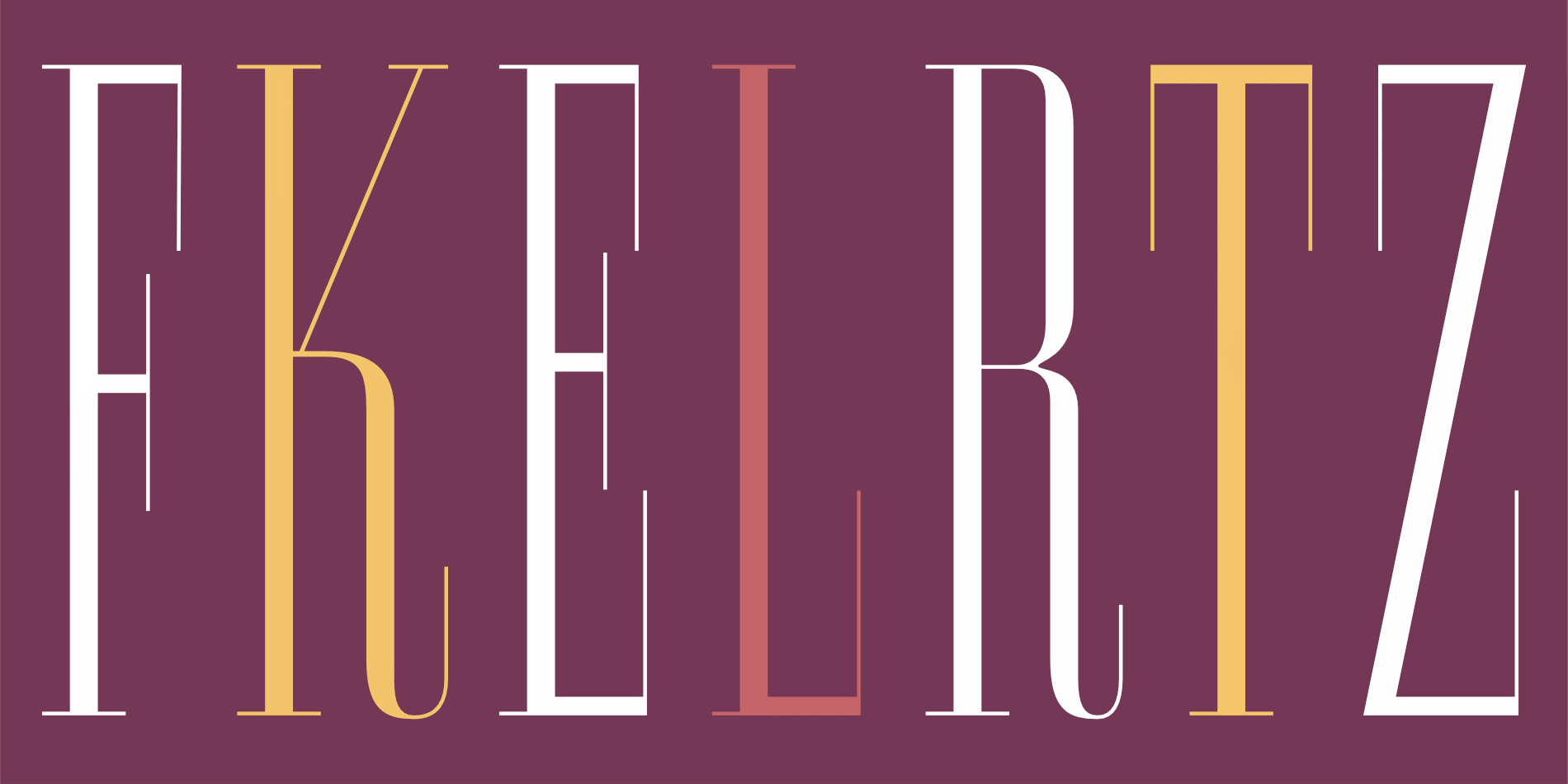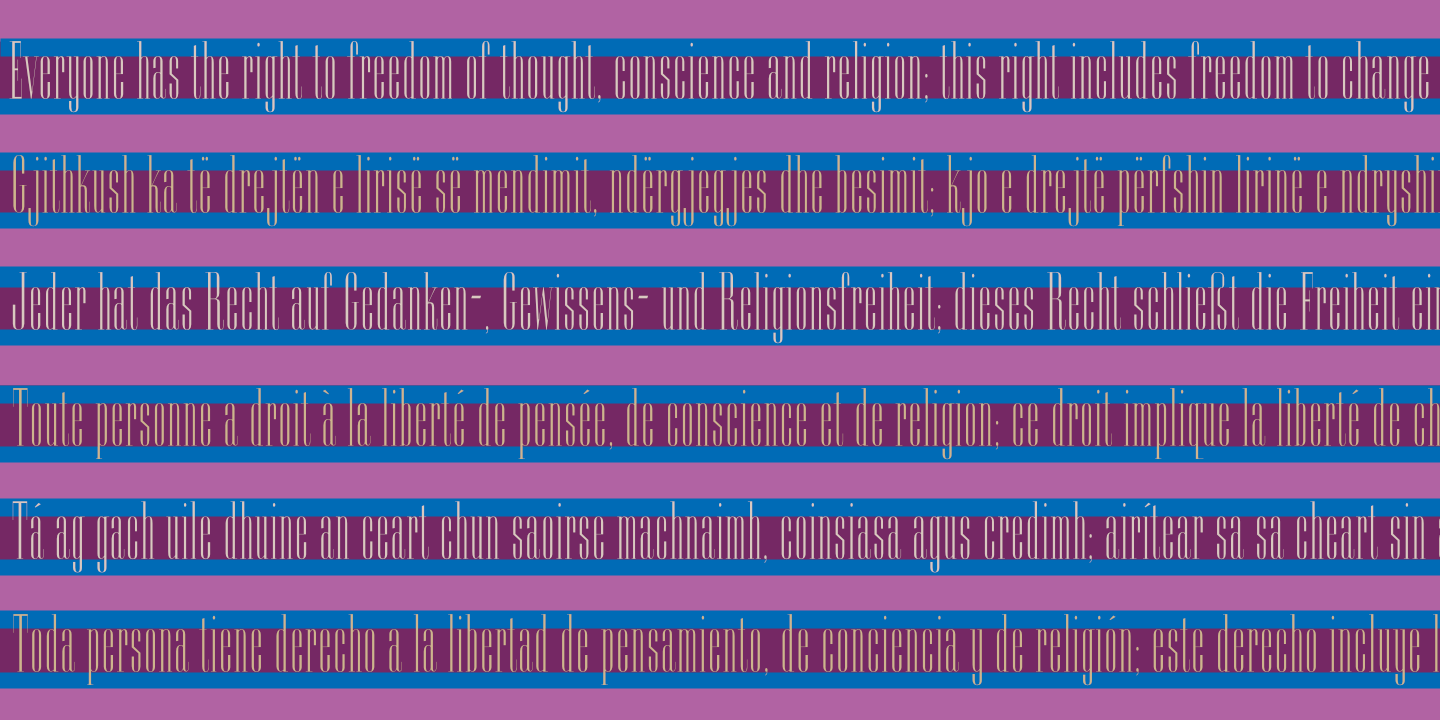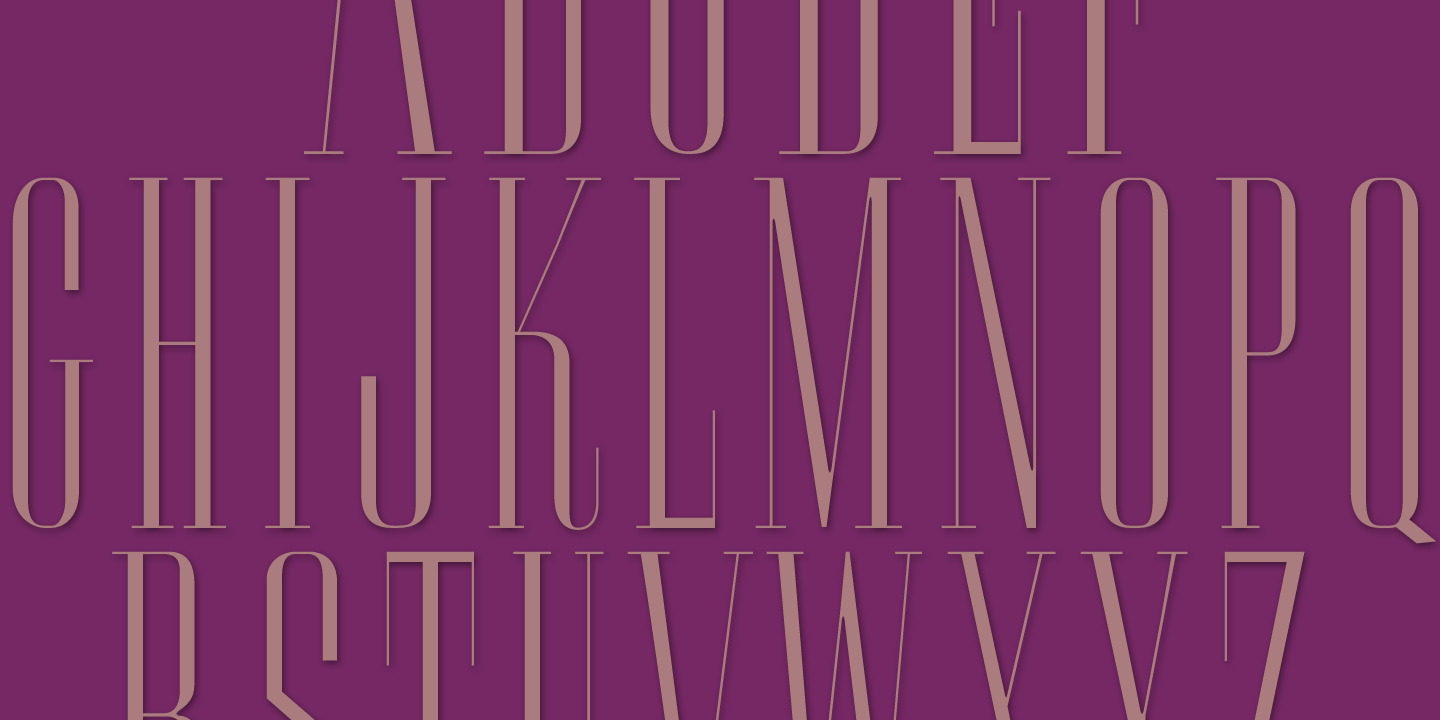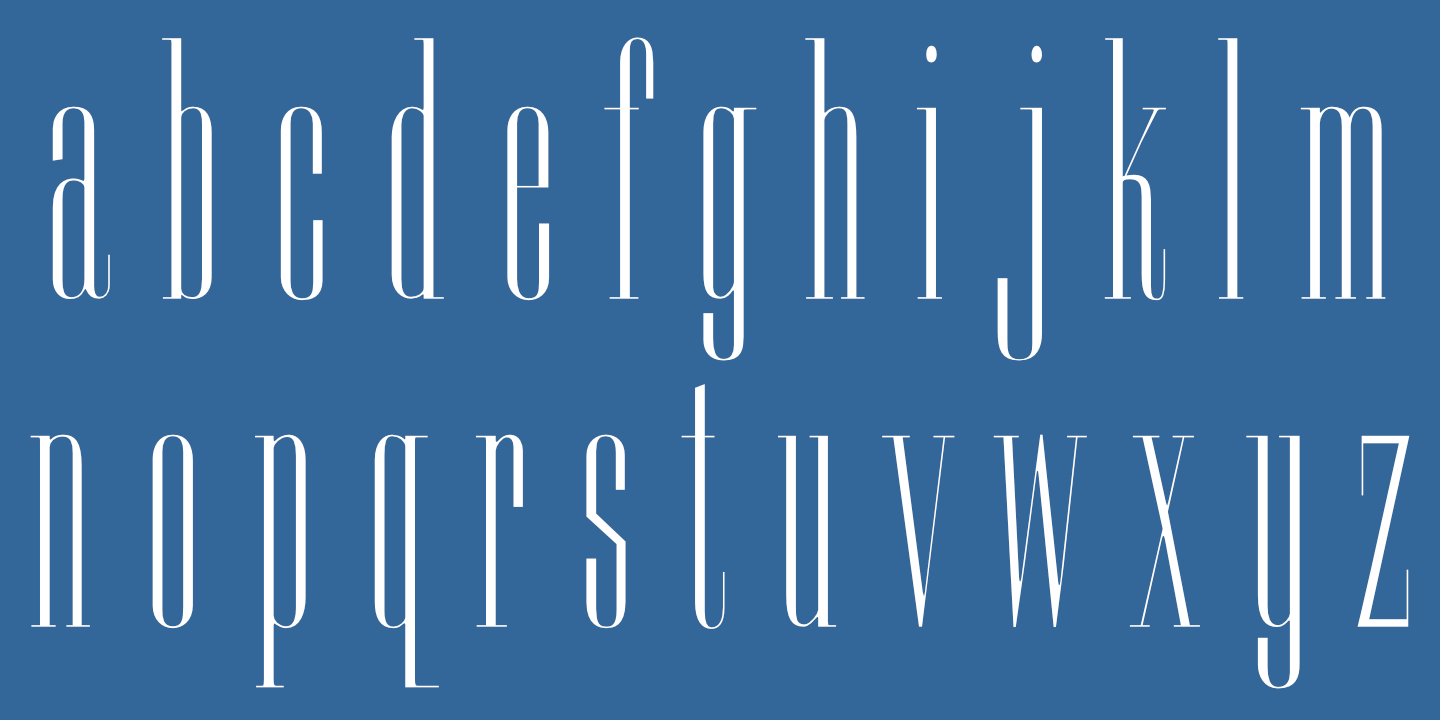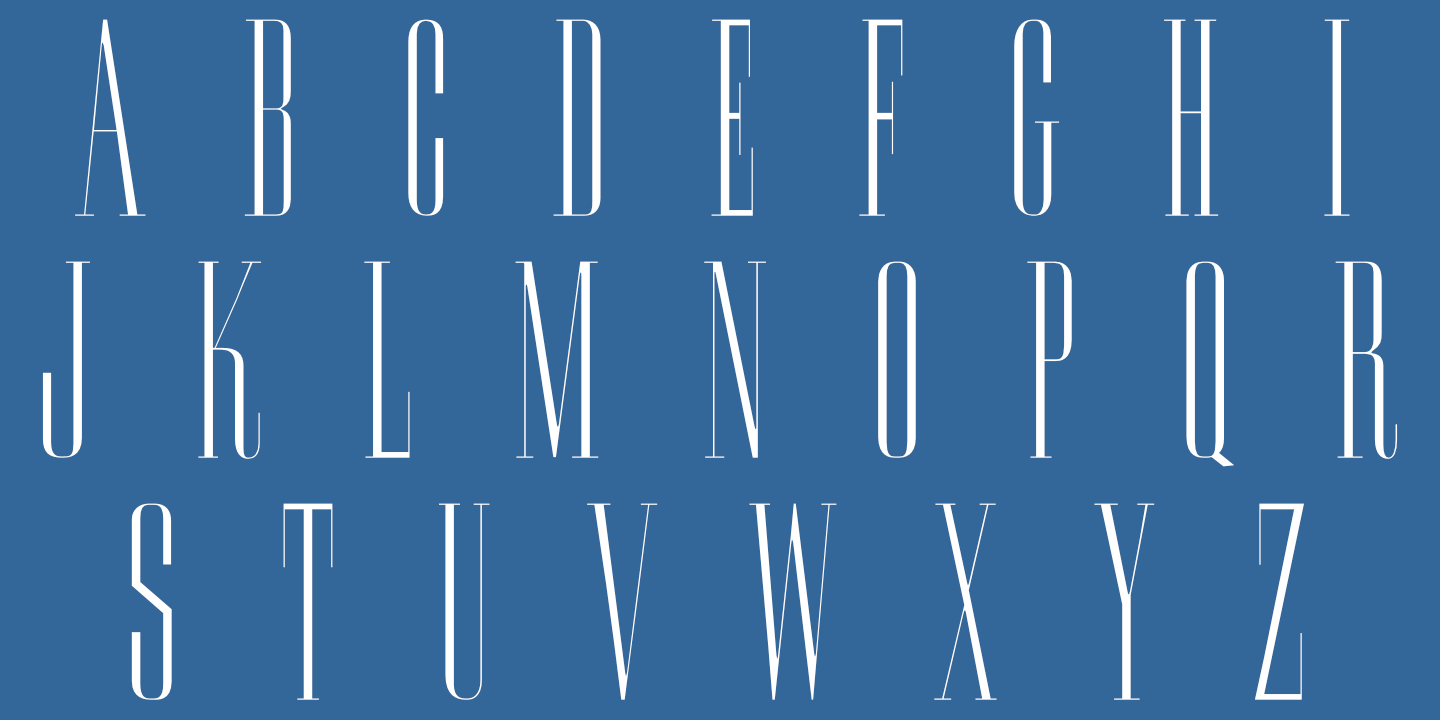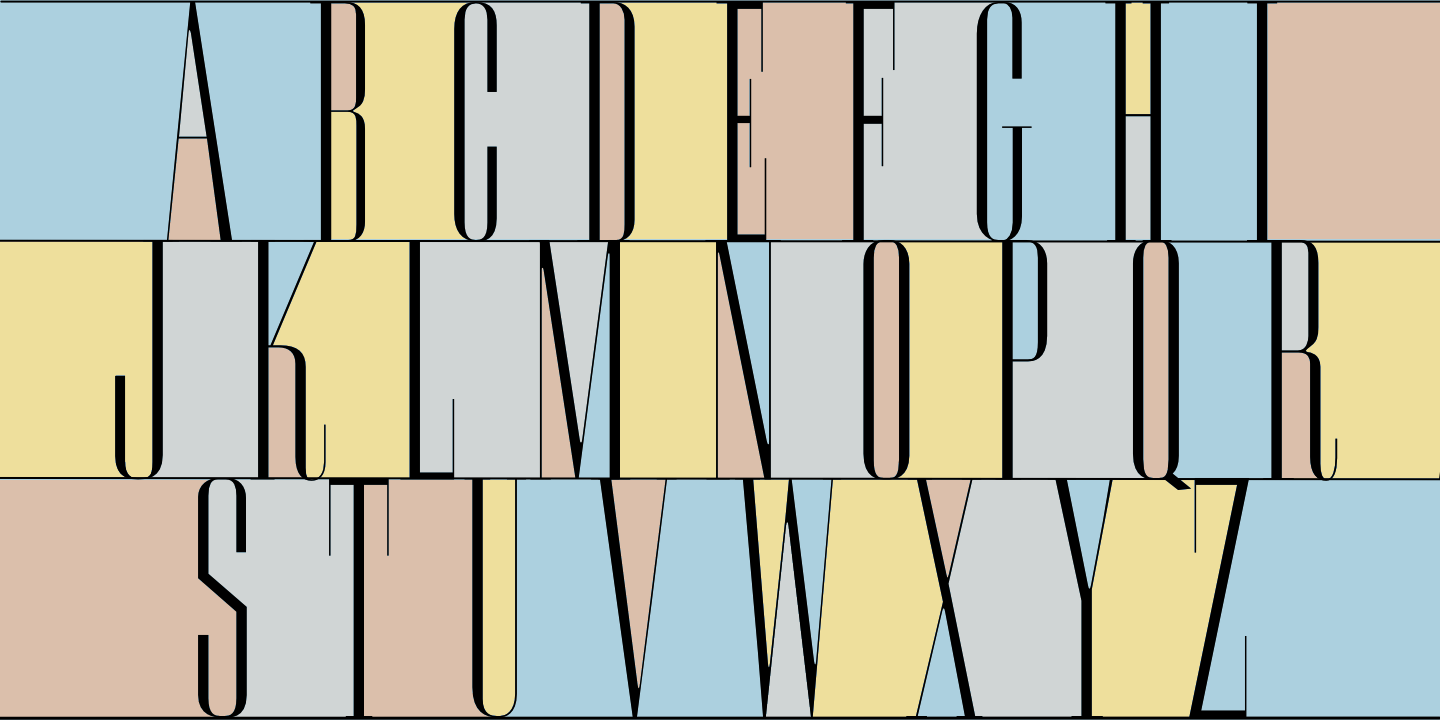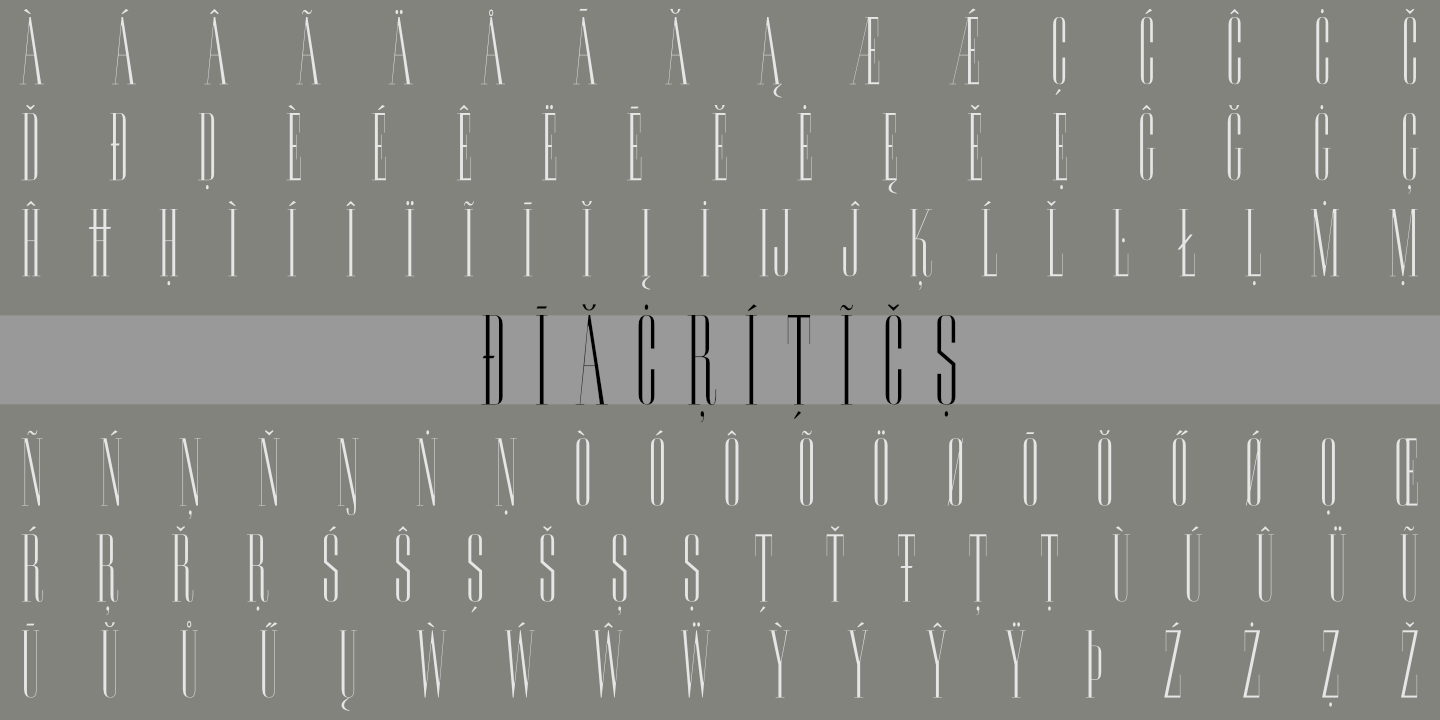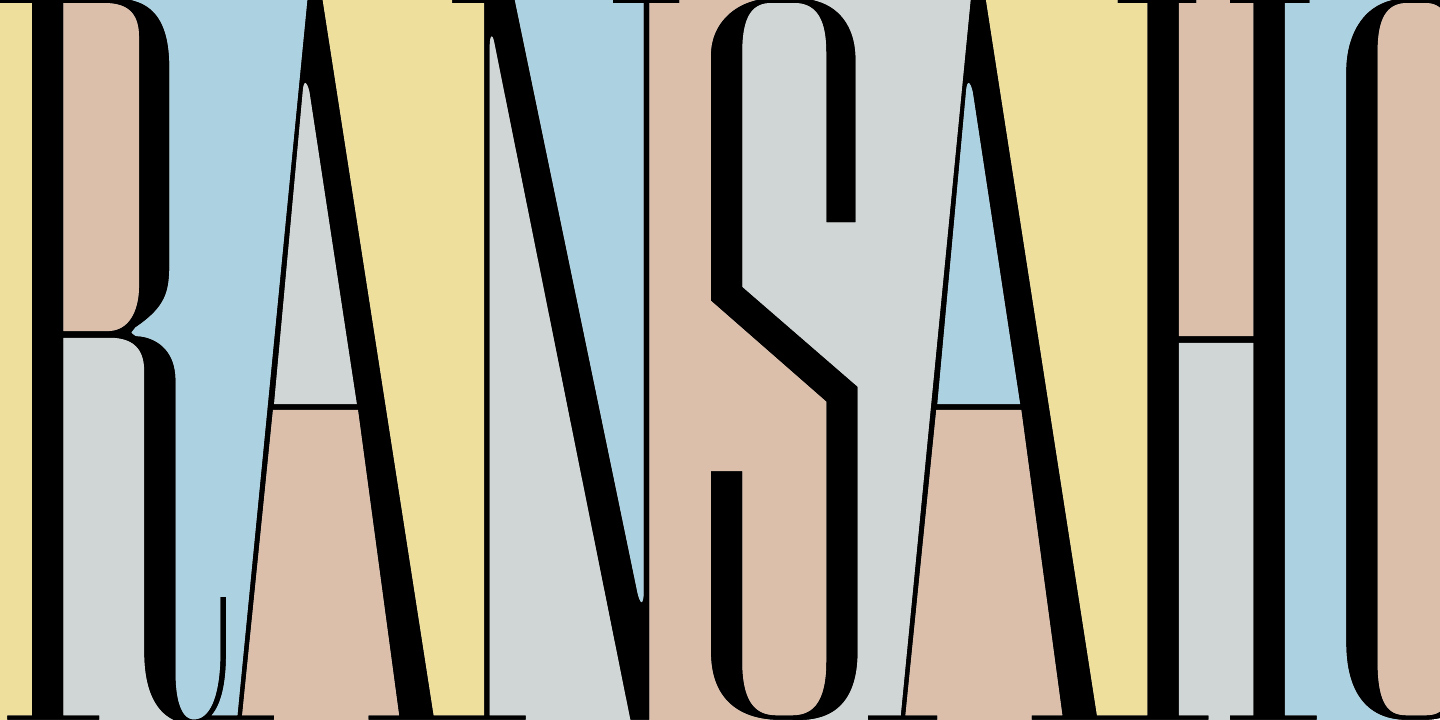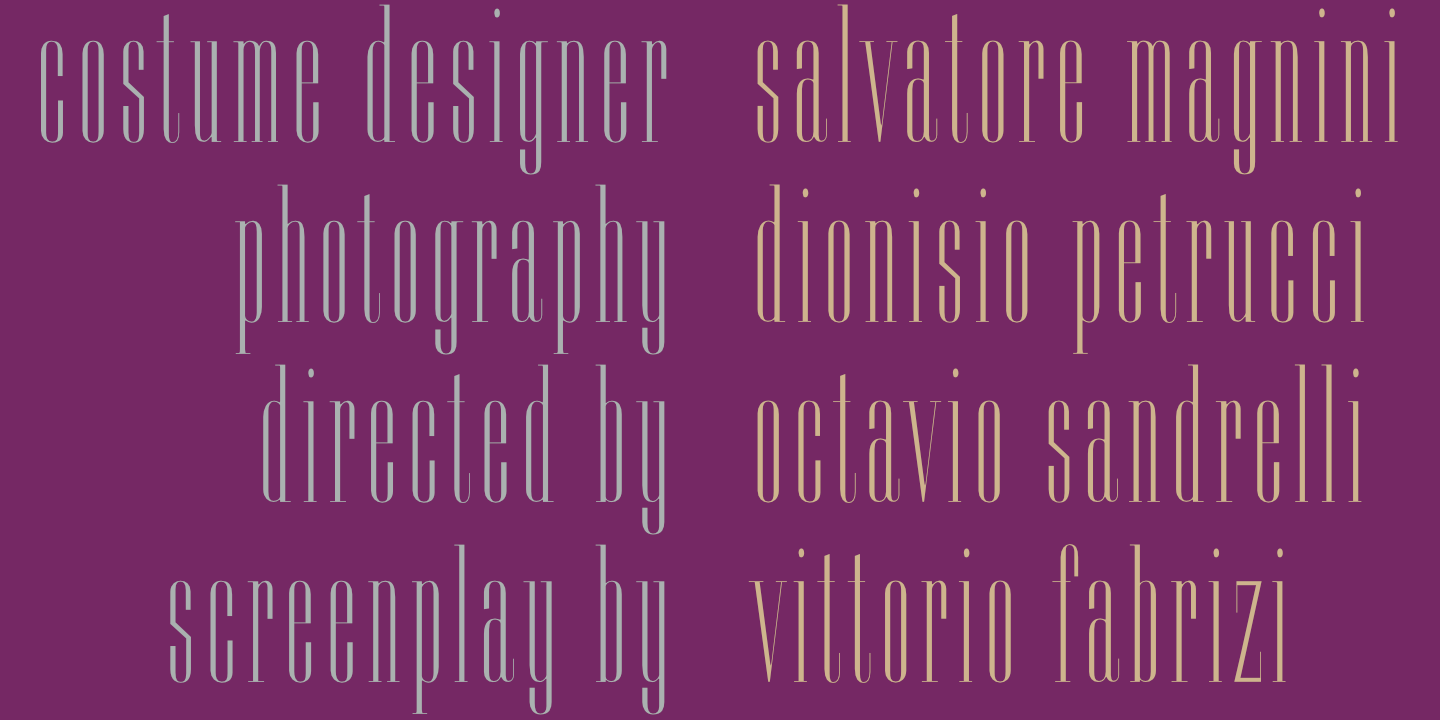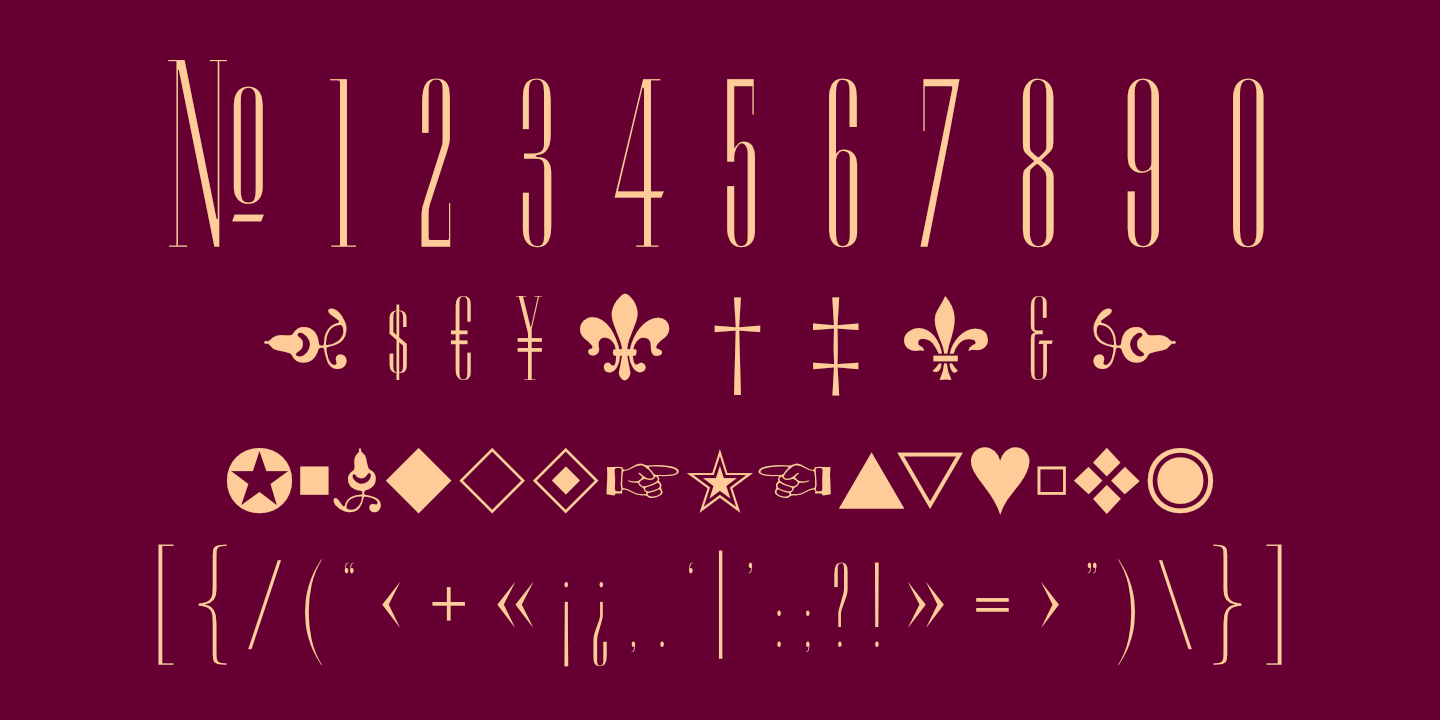
Ransahoff: Basic Latin alphabet: Uppercase and numerals. See Glyphs for details.
Ransahoff must be used very large and carefully, especially on computer monitors, to retain its delicate lines.
Ransahoff: Lowercase Latin alphabet. See Glyphs for details.
Ransahoff: Numerals, basic punctuation, currency symbols, and a sampling of ornaments.
Ransahoff supports many Western European languages. See Glyphs for details.
Ransahoff is the perfect super-condensed font for tight spaces. Zoom in for detail.
Ransahoff has very fine lines. Use it carefully (large and hi-resolution) to make the most of them.